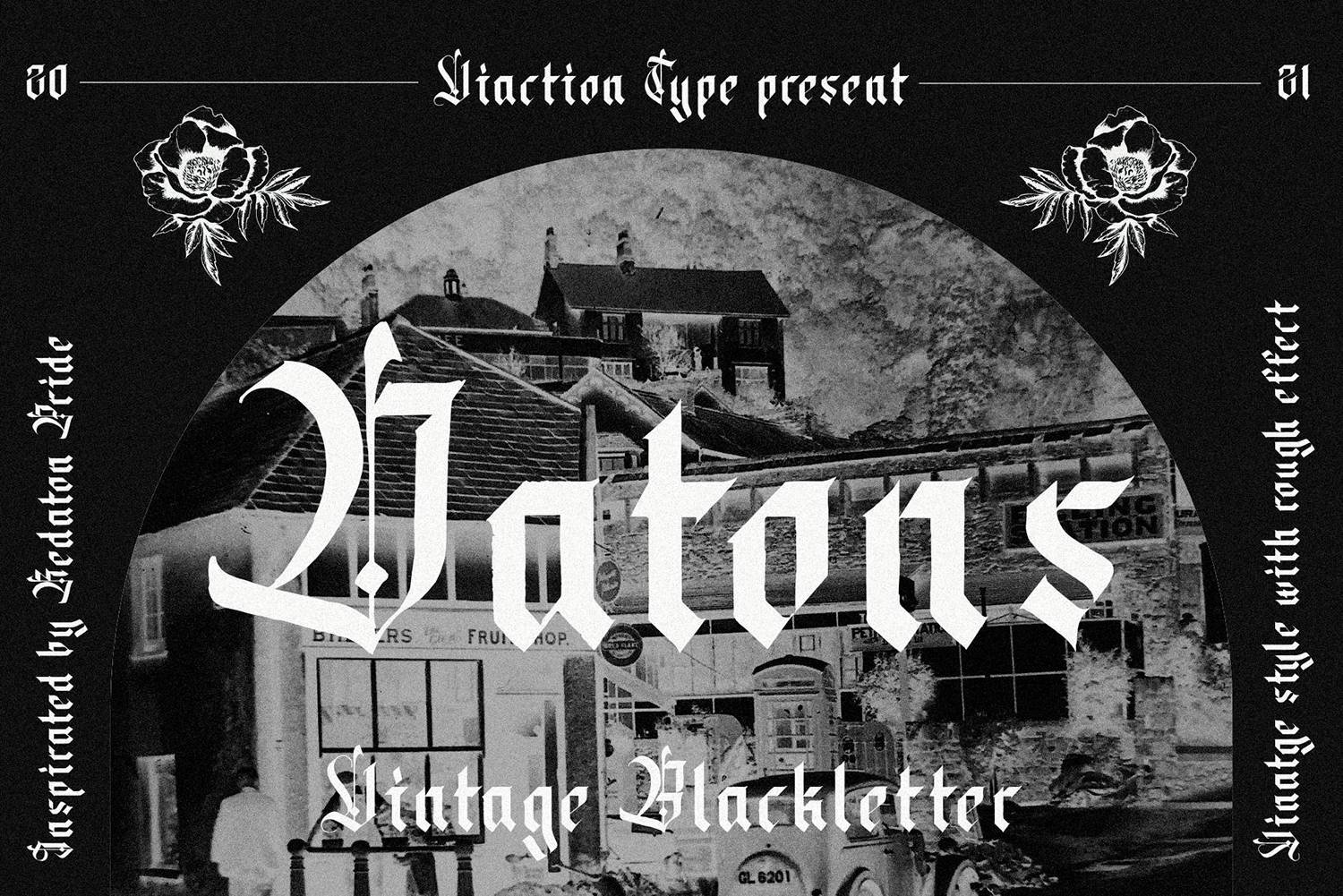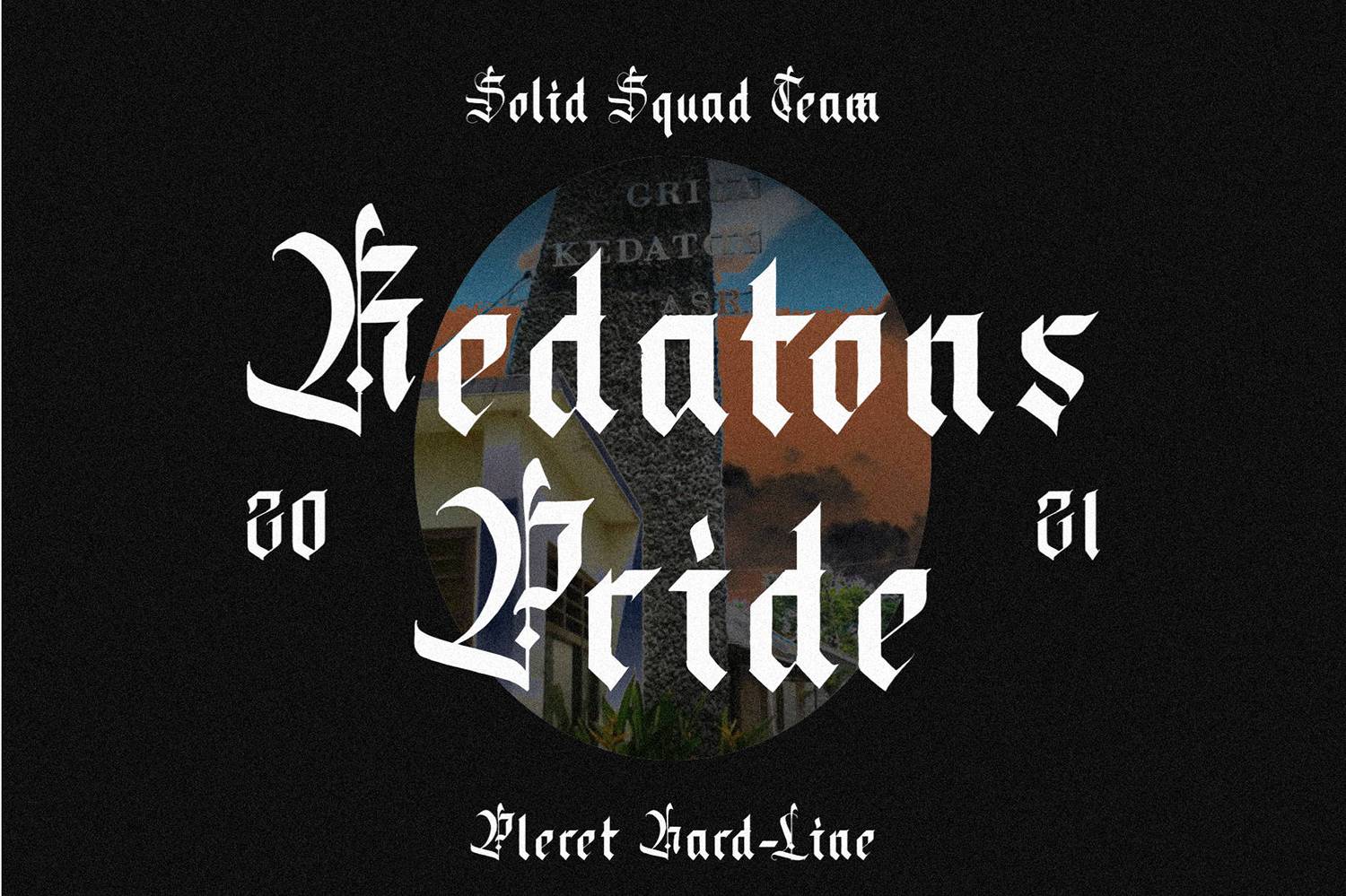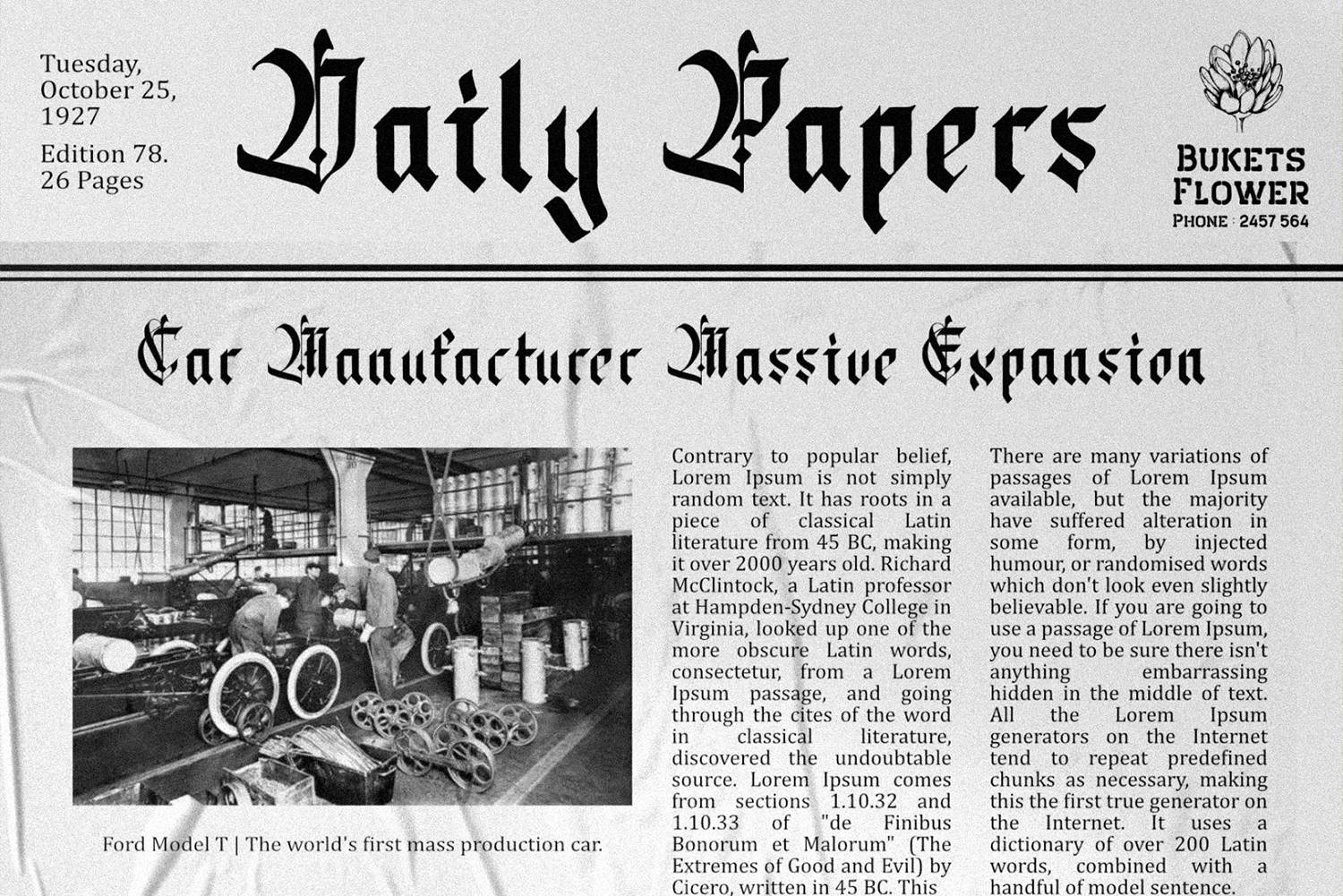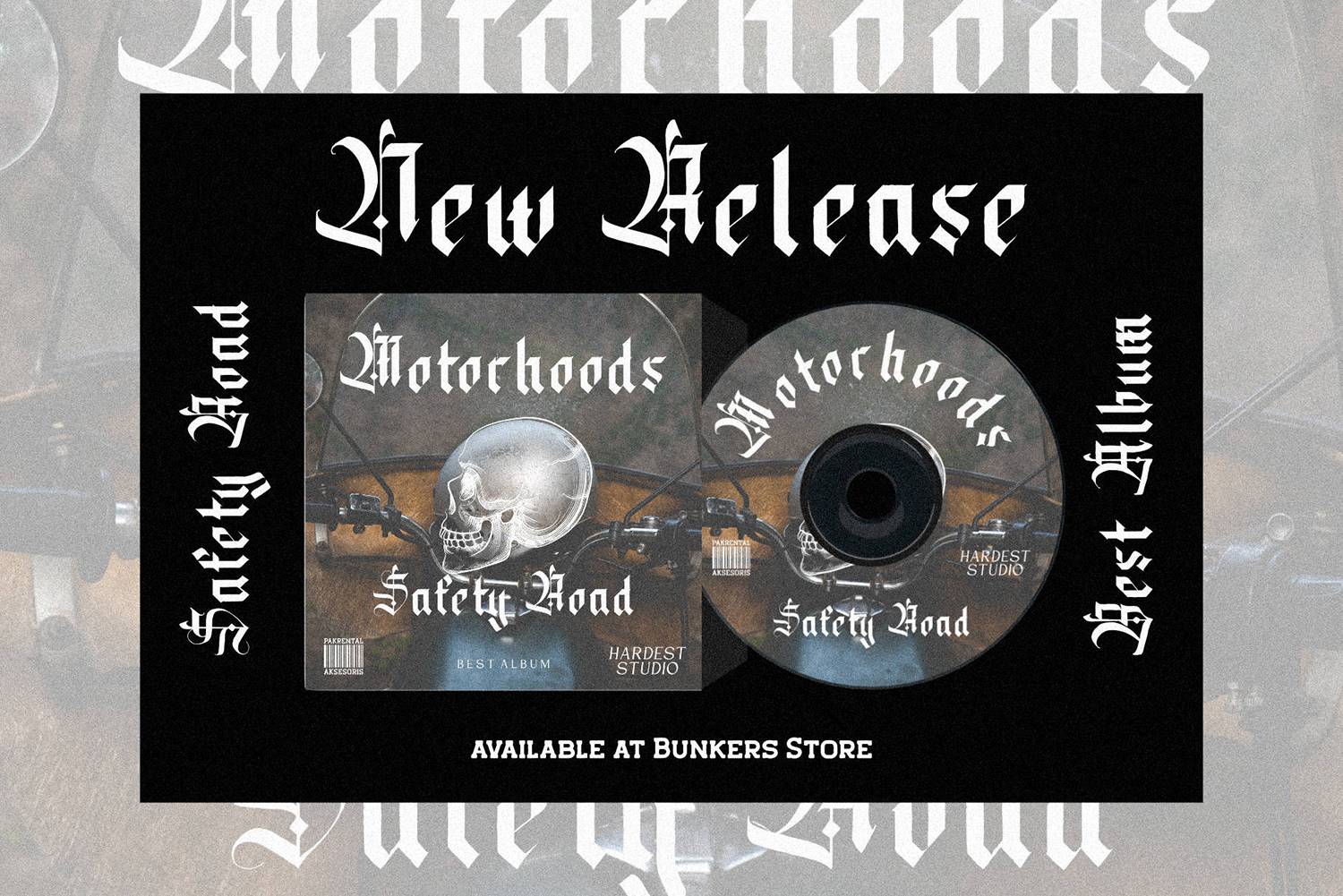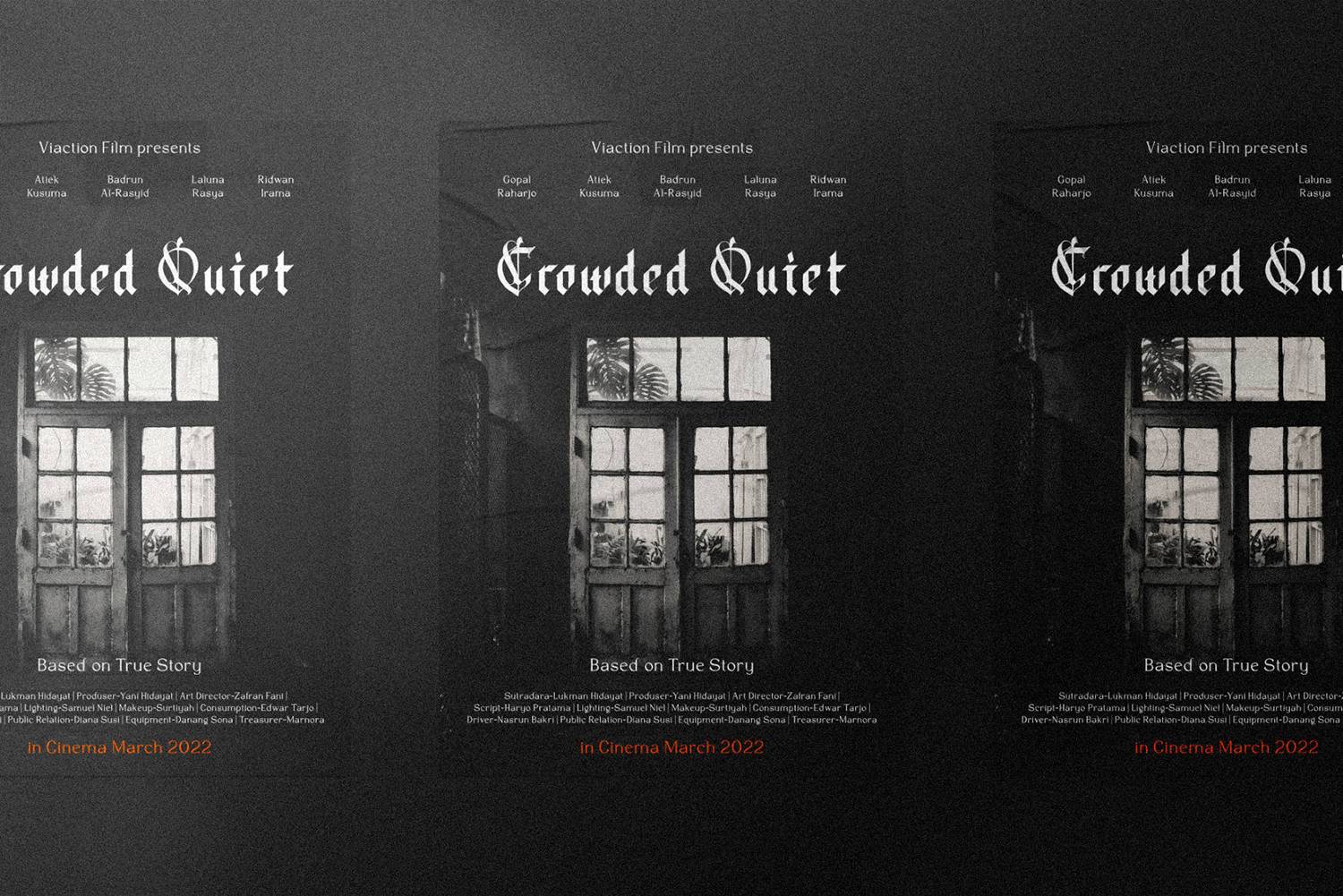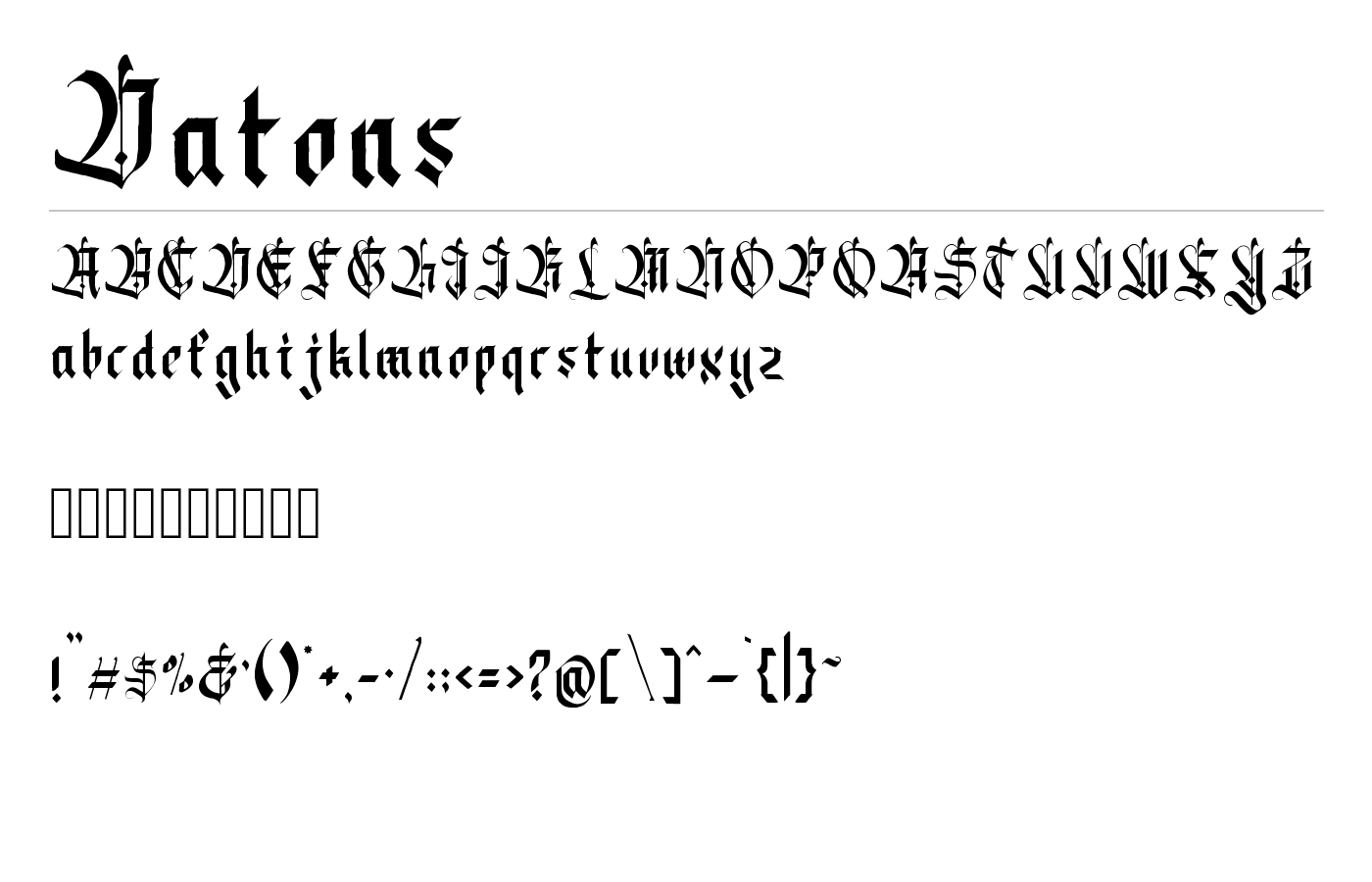
Datons is a blackletter serif font characterized by its bold, dramatic strokes and intricate, angular details that evoke a gothic, medieval feel. This typeface features high contrast between thick and thin lines, sharp edges, and a distinct old-world charm, making it ideal for projects seeking a historic or vintage aesthetic with a strong, authoritative presence. It works best for decorative headlines, logos, and branding that aims to convey tradition, formality, or a mysterious, gothic mood.
Datons Font
About Datons Font